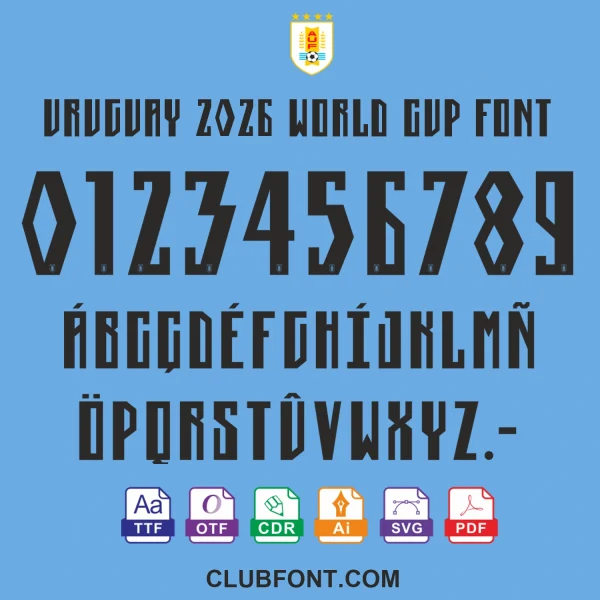
Authentic Uruguay 2026 Typography
Featuring Celeste-blue accents and football-inspired curves, this font captures Uruguay’s national pride. Optimized for readability in both small-scale (jersey numbers) and large-scale (poster headlines) applications.